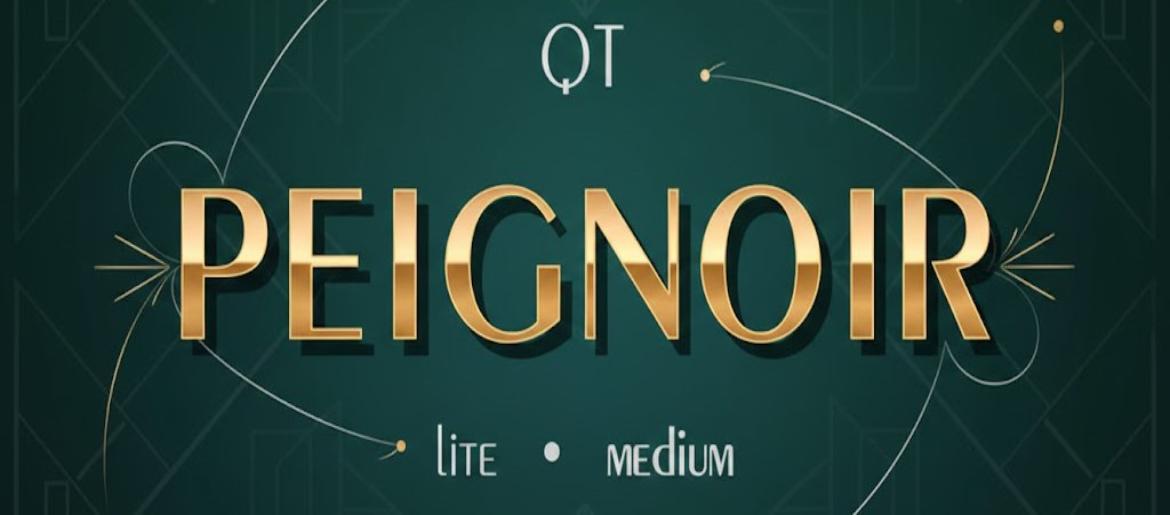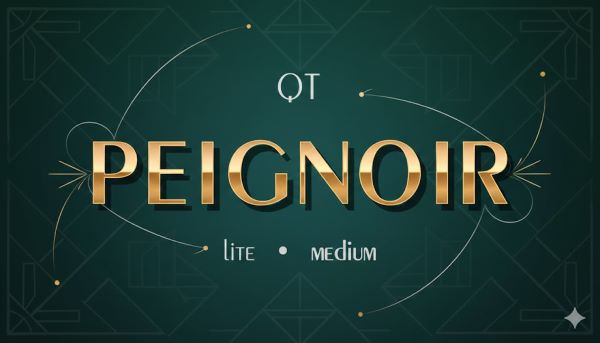
Peignior Font
Peignior Font is a classic display typeface inspired by elegant mid-century lettering styles. It features refined curves and distinctive character, making it suitable for logos, branding, posters, packaging, and editorial headlines. Its timeless personality and decorative sophistication help designs stand out while fitting seamlessly into vintage-inspired and stylish free fonts collections.
➤ Style: Sans Serif